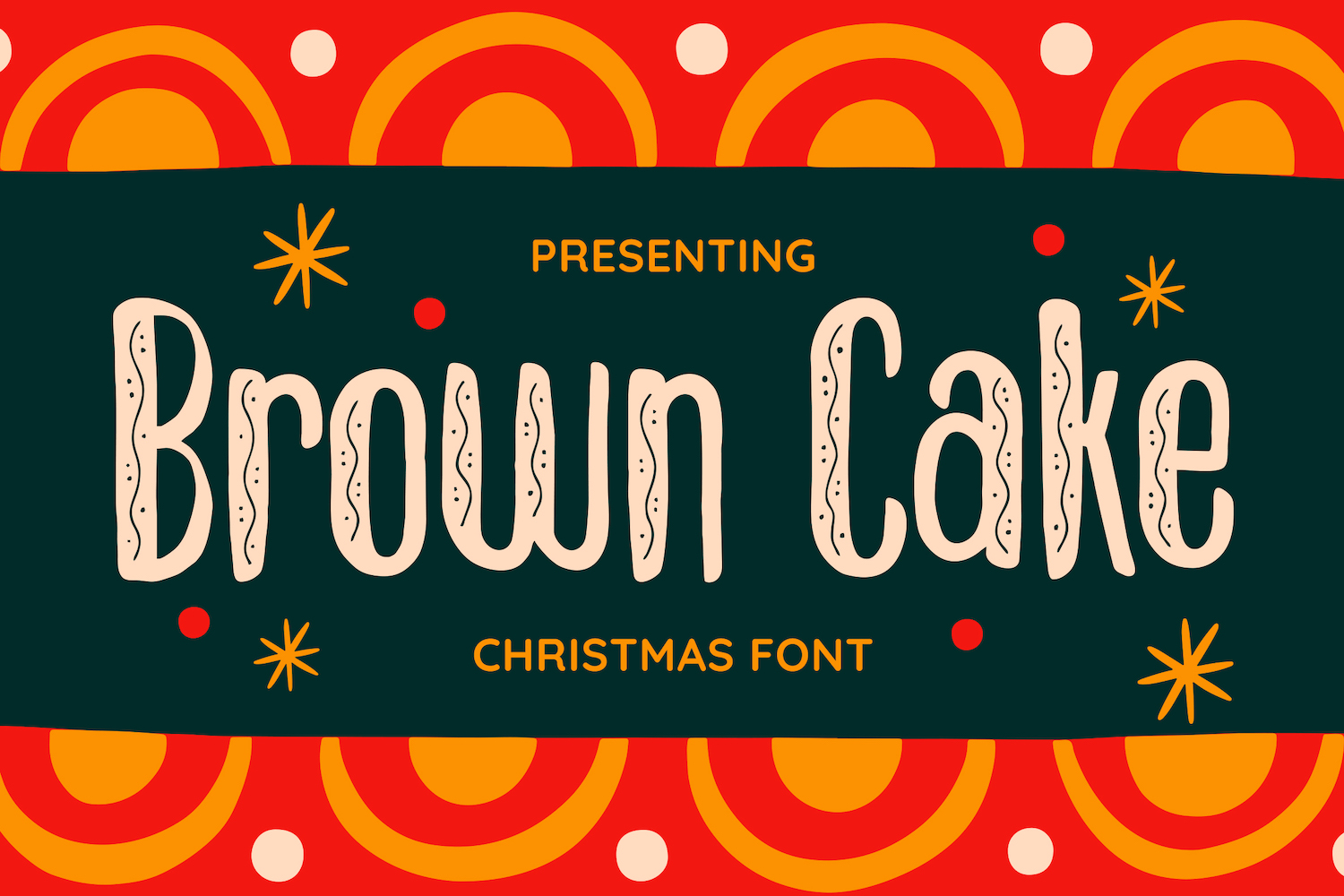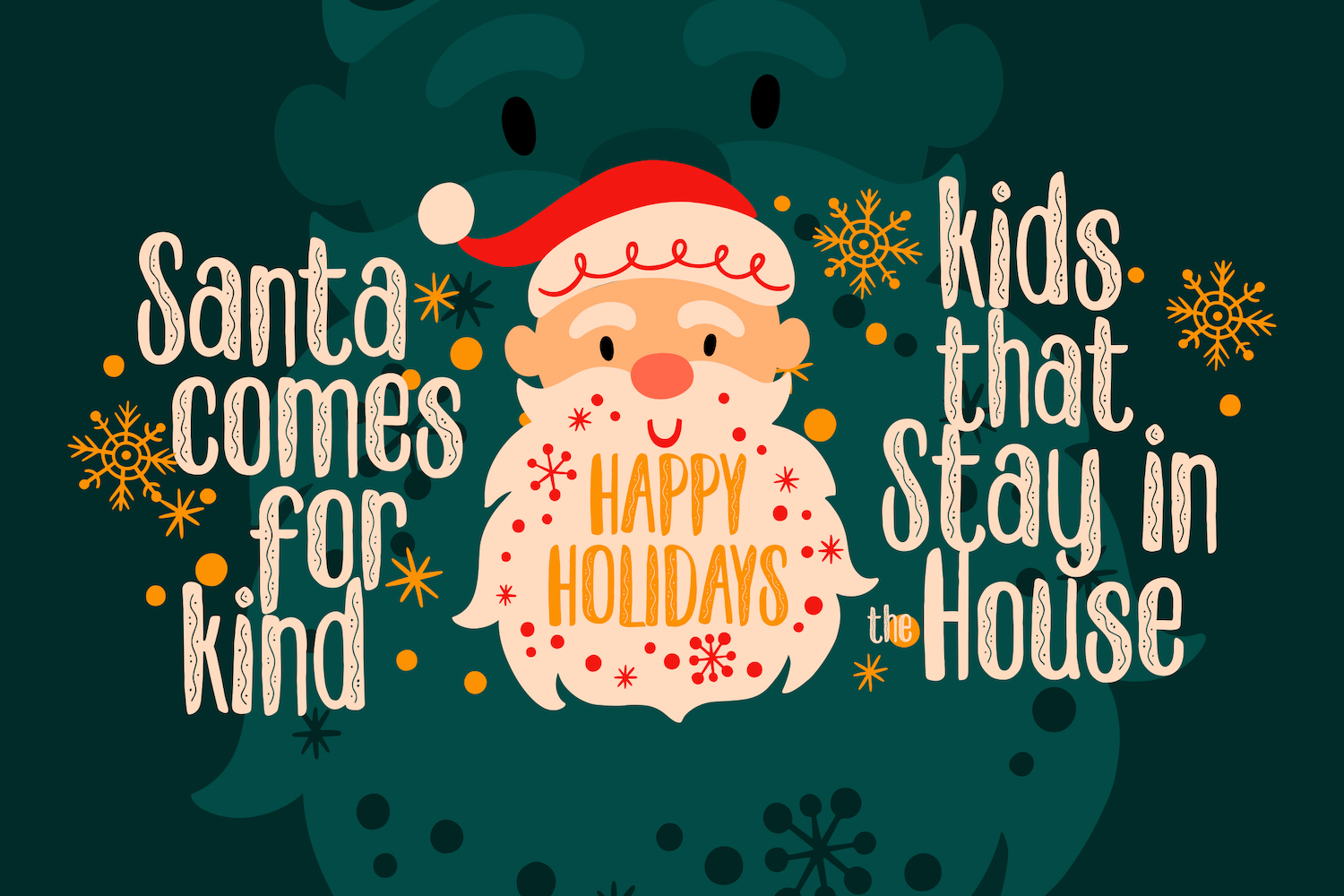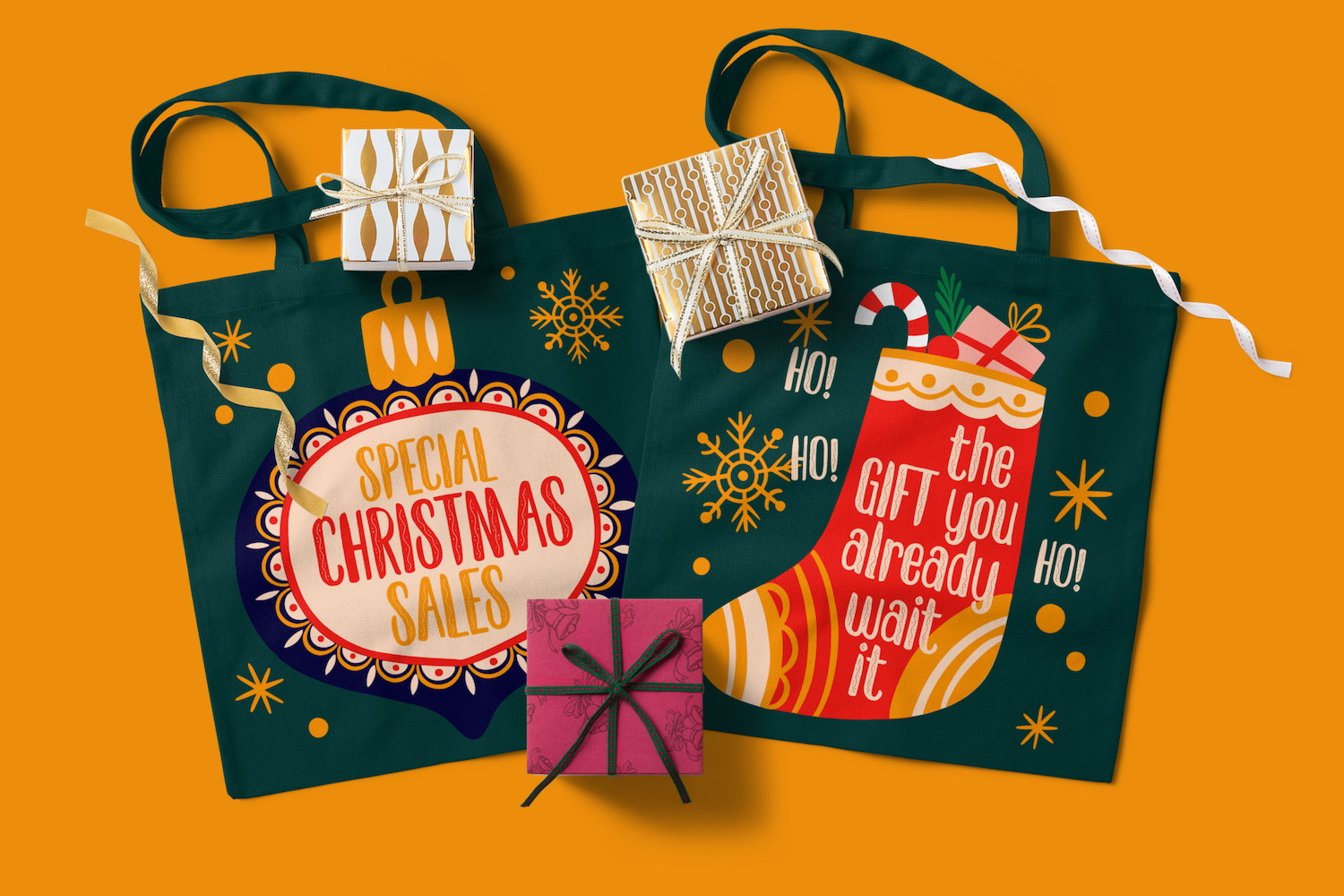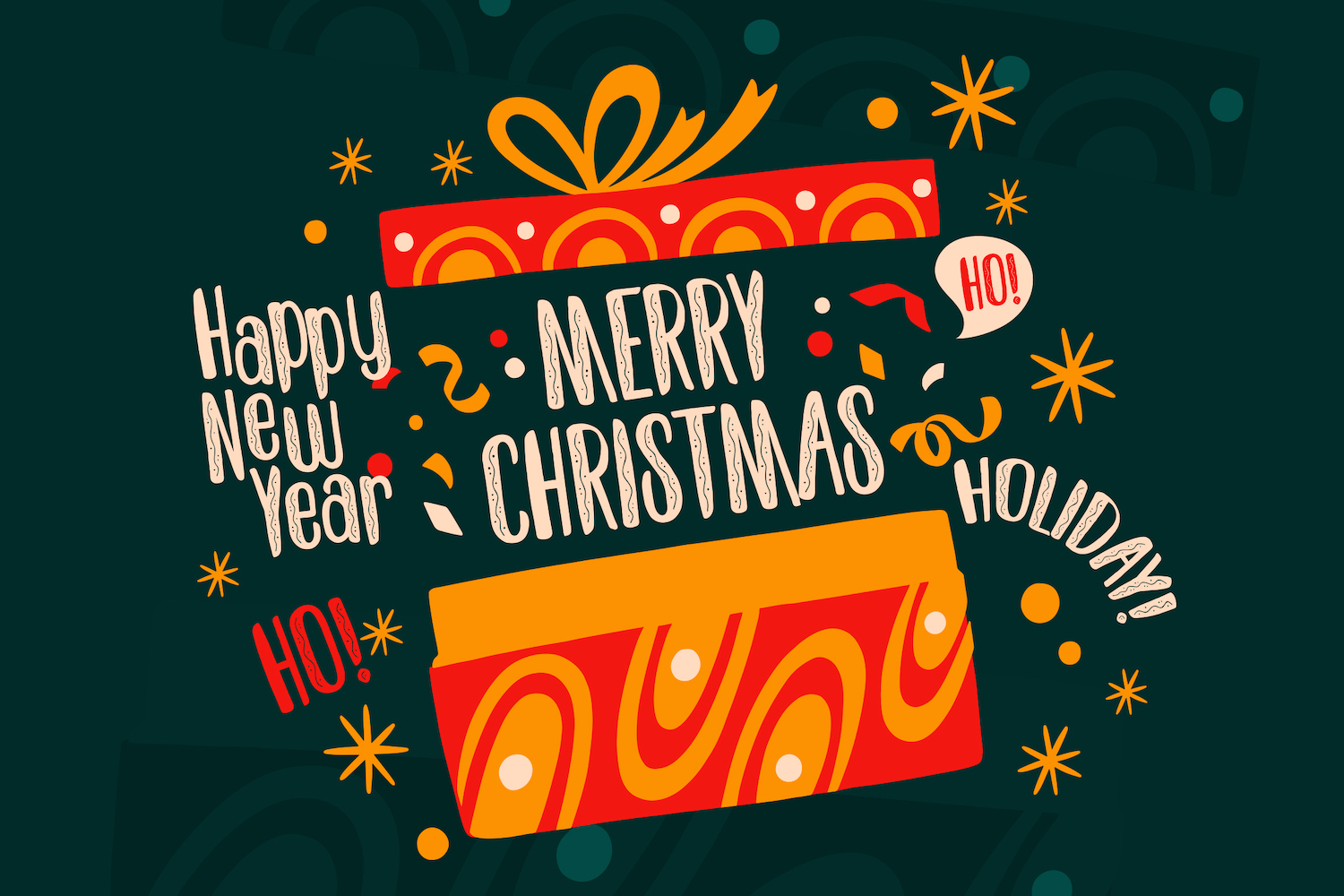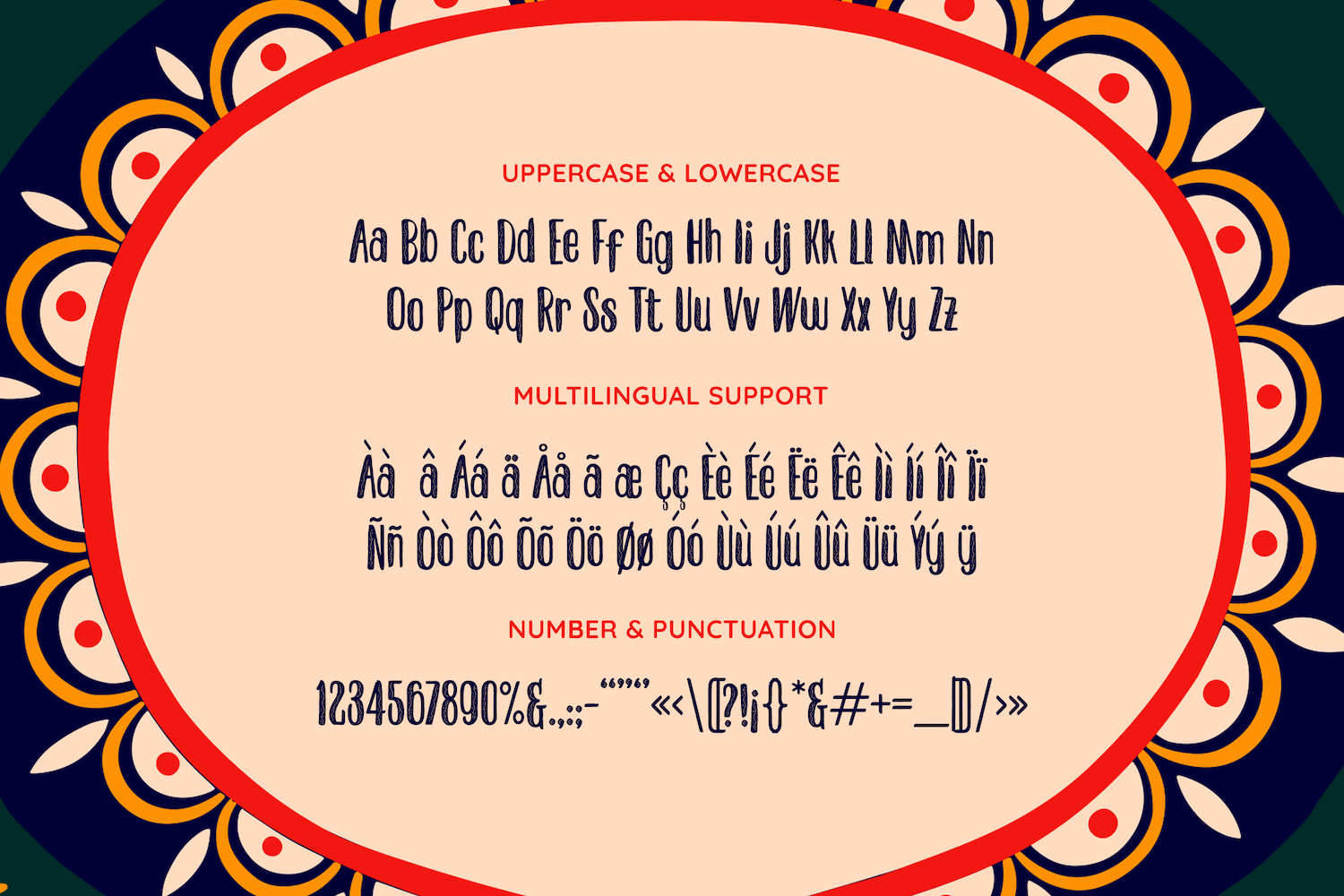
Brown Cake is a festive and cheerful display font designed to bring a warm, playful spirit to your holiday projects. With its tall, rounded letterforms and charming hand-drawn wavy decorations, this typeface perfectly captures the joy of Christmas treats and cozy celebrations. It’s ideal for greeting cards, holiday packaging, children’s books, or any design that needs a dash of seasonal sweetness.
This font supports uppercase, lowercase, numbers, punctuation, and multilingual characters, making it versatile and easy to use across various languages and applications. Whether you’re crafting gift tags, creating fun event posters, or decorating your Christmas merchandise, Brown Cake adds a delightful and friendly touch to every word.
Brown Cake